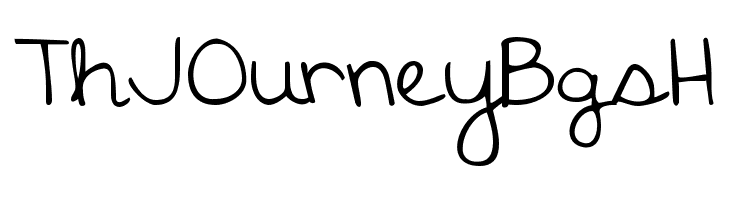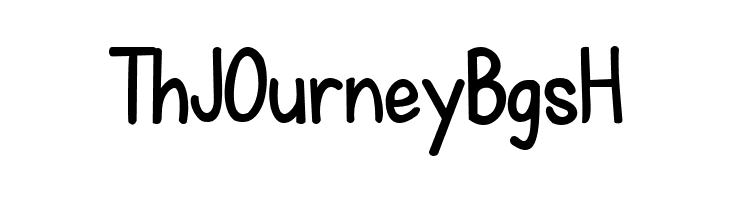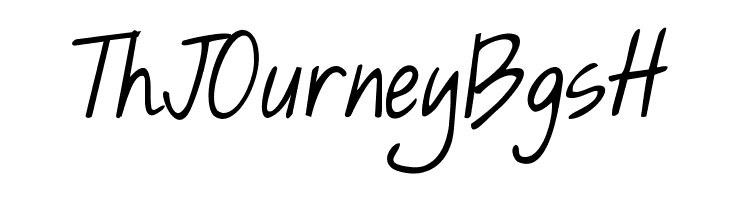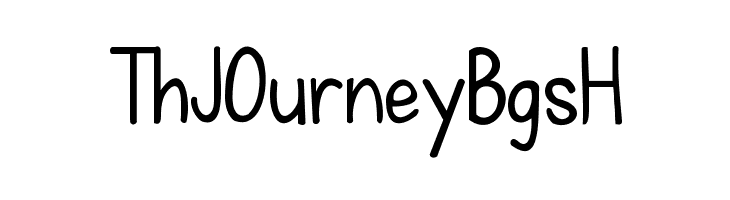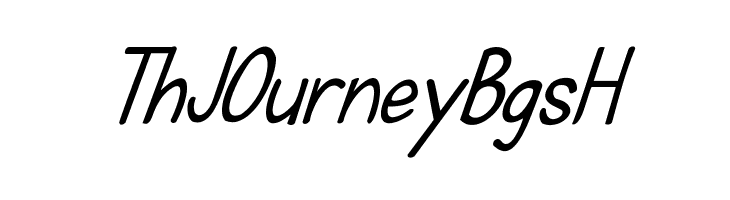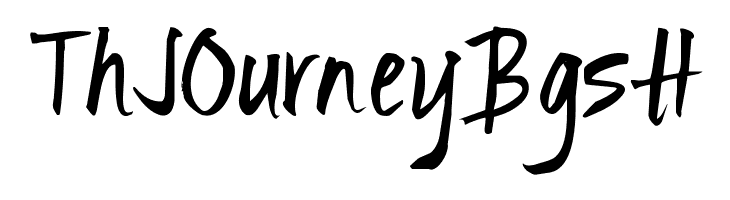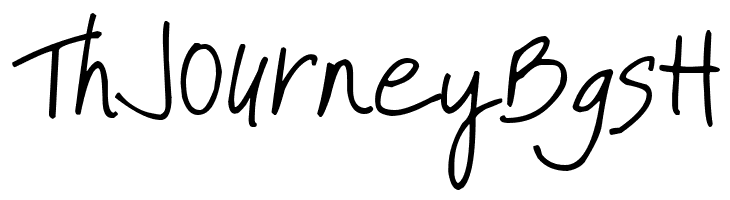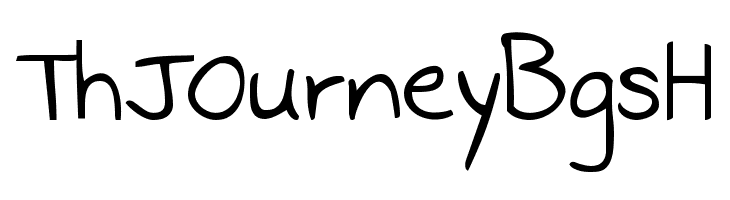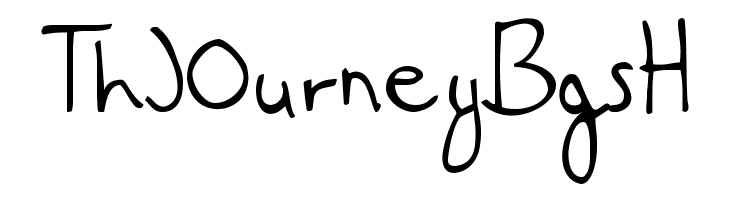
• KG Fall For You
A playful, hand-drawn font with rounded, friendly characters.
• KG Fall For You Bold
A bold, handwritten font with a playful and friendly style.
• KG Fall For You Bold
A playful, bold handwritten font with a casual and friendly style.
• KG Fall For You Italic
A playful, handwritten italic font with smooth, connected characters.
• KG God Gave Me You
• KG Hanging By a Thread
A playful handwritten font with smooth, rounded strokes and a casual vibe.
• KG Hope For A Cure
A lively handwritten font with fluid, energetic strokes.
• KG I Missed You
A playful, handwritten font with a casual and friendly vibe.
• KG Ignite the Light
A bold, expressive handwritten font with dynamic strokes and a playful style.
• KG It Aint Rocket Science
A playful, handwritten font with a casual and dynamic style.